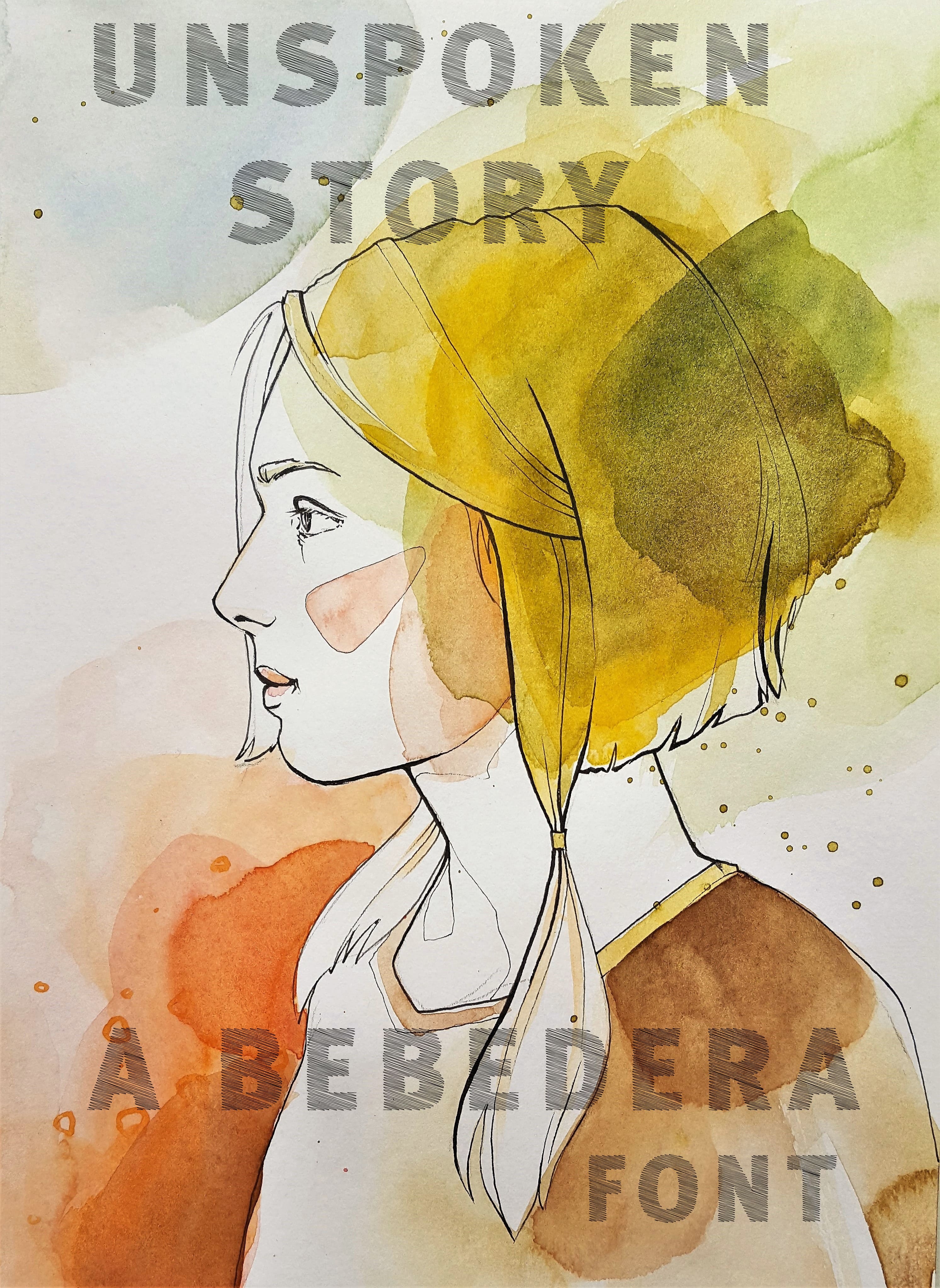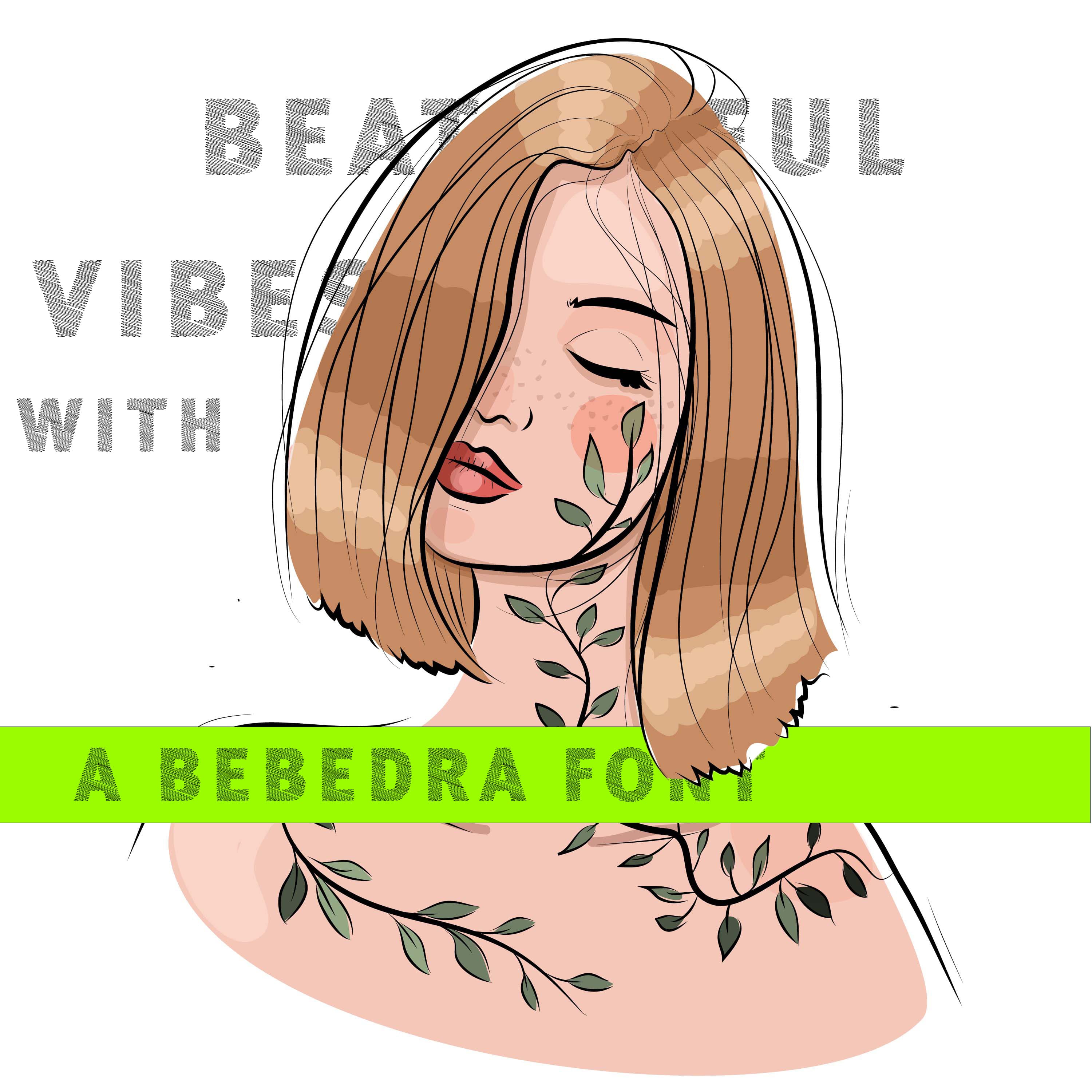
A Bebedera Heavy font is well-suited for any lively design you may have in mind. Its font subcategory is Heavy, and it was created by deFharo, available for personal use at no cost.
A Bebedera Heavy
Typography Sets Of A Bebedera Heavy Font
A Bebedera Heavy Font, Special Characters Typography Set